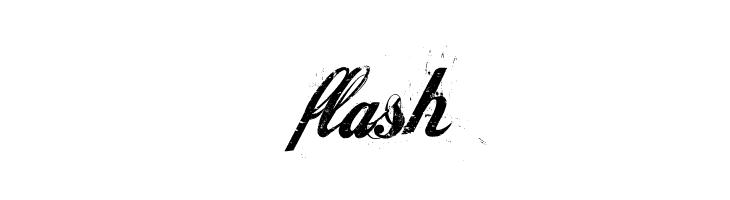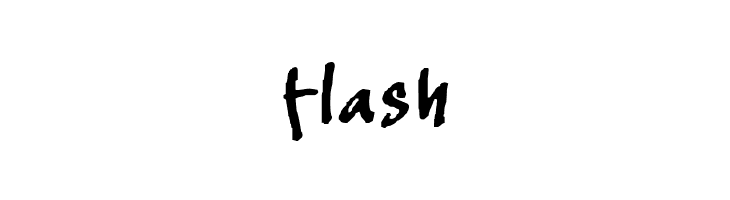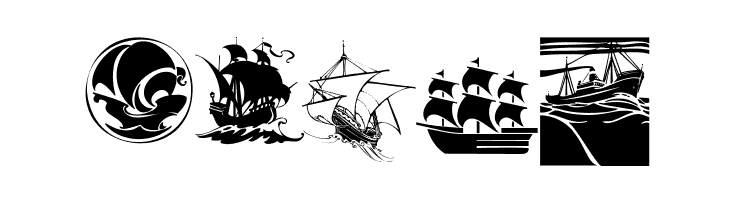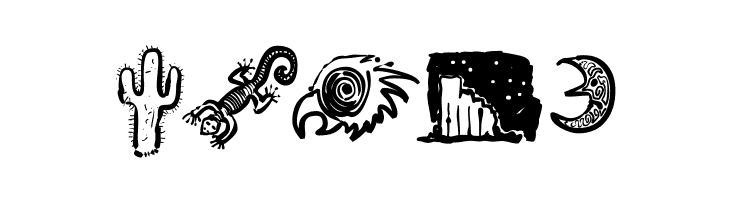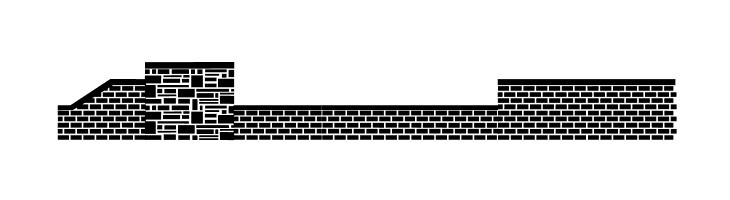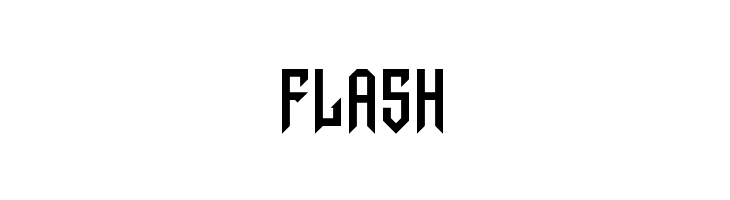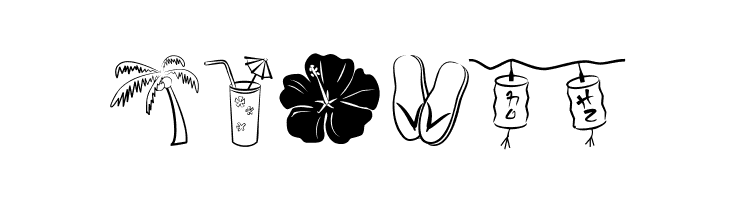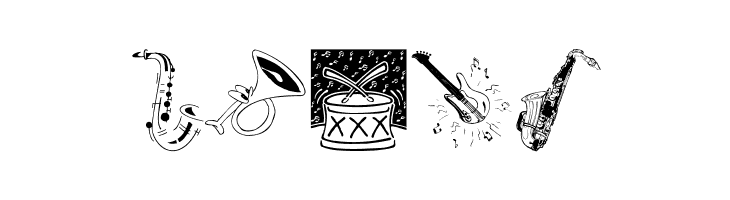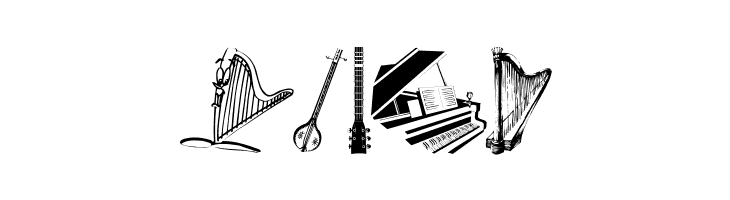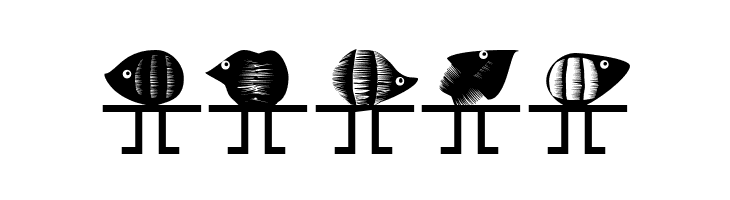
A decorative script font with floral embellishments and a distressed texture.
A bold, expressive handwritten font with dynamic strokes.
A casual, handwritten font with a slight slant and smooth, rounded characters.
A maritime-themed decorative dingbat font with pirate ships and nautical icons.
A decorative set of desert-themed symbols with intricate, bold designs.
A bold, angular font with a gothic, medieval aesthetic.
A tropical-themed dingbat font with detailed island-inspired icons.
Illustrative font with each character as a unique musical instrument drawing.
A decorative font made from illustrated musical instruments.
A playful, bird-themed decorative display font with bold, abstract shapes.
A display font composed of assorted illustrated eye motifs.
Decorative maritime-themed dingbat set with bold, vintage illustrations.
Decorative maritime pictogram set with detailed nautical illustrations.
A quirky, hand-drawn font made of abstract faces.
A bold, condensed blackletter font with intricate details and a historic flair.
A symbol font based on maritime signal flags with bold geometric patterns.
Cartoonish, money-themed decorative font with detailed illustrations.
An intricate, decorative font with Celtic-inspired patterns and bold, framed letters.
Hand-sketched, illustrative display set with unique drawings for each character.
A decorative font with characters represented by detailed illustrations of tools and gadgets.
Cartoonish dingbat font themed around New York City scenes and characters.
A playful, bold font with rounded edges and a hand-drawn feel.
Silhouette-style decorative font with waterfront and nature scenes.
Hand-drawn maritime illustrations in a decorative dingbat style.
A bold, hand-drawn style font with thick, uneven strokes.
Intricate tribal designs featuring animal motifs and abstract forms with bold lines and cultural symbolism.